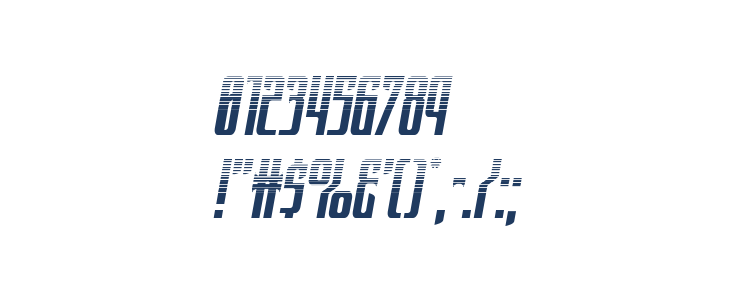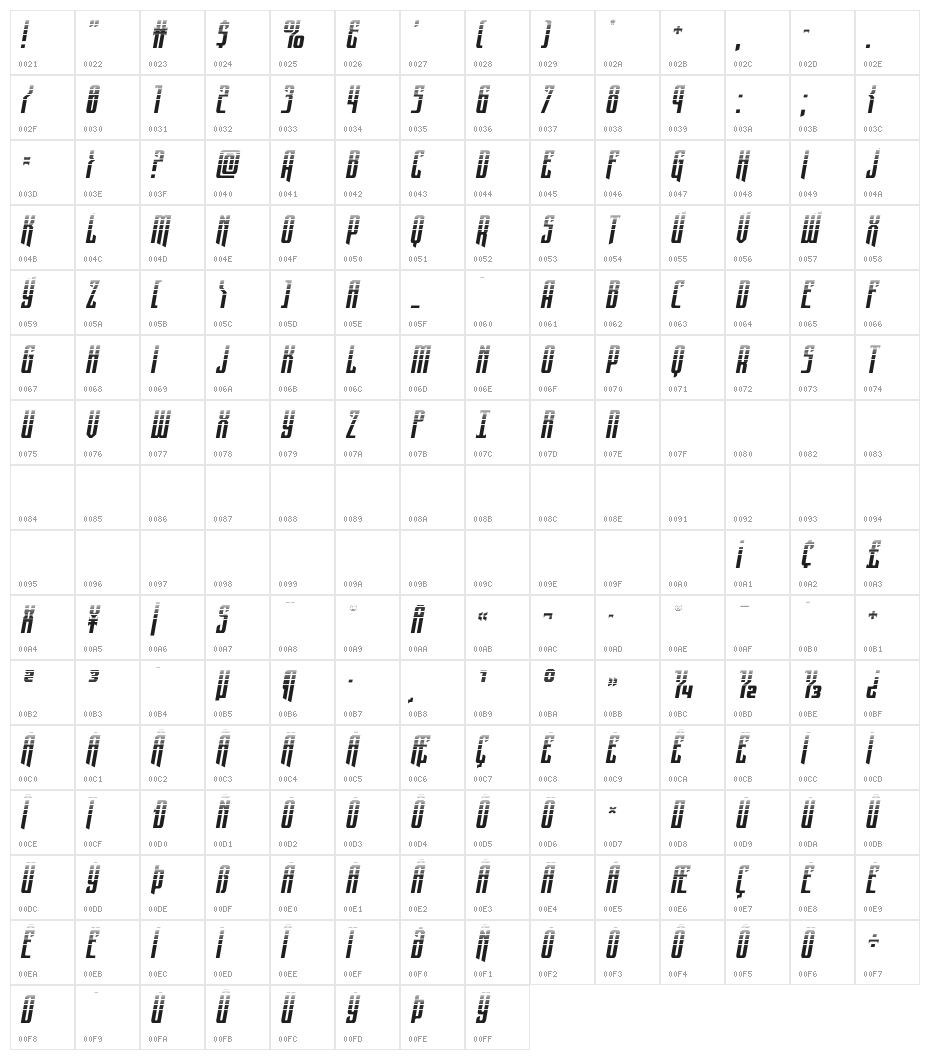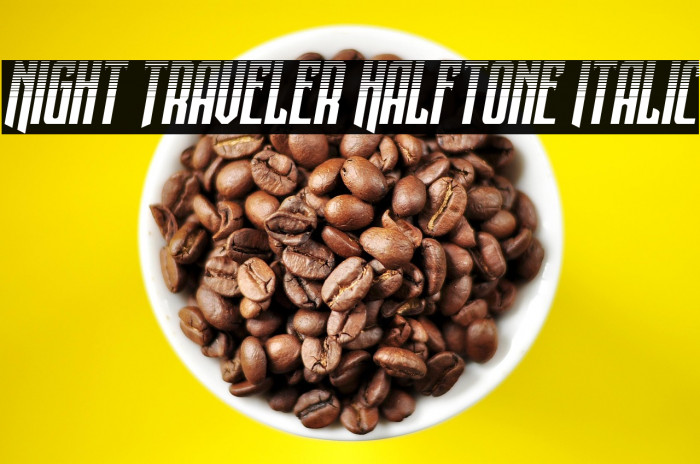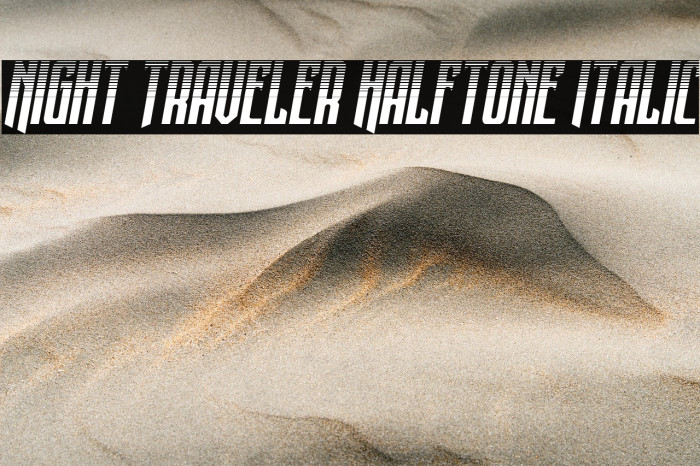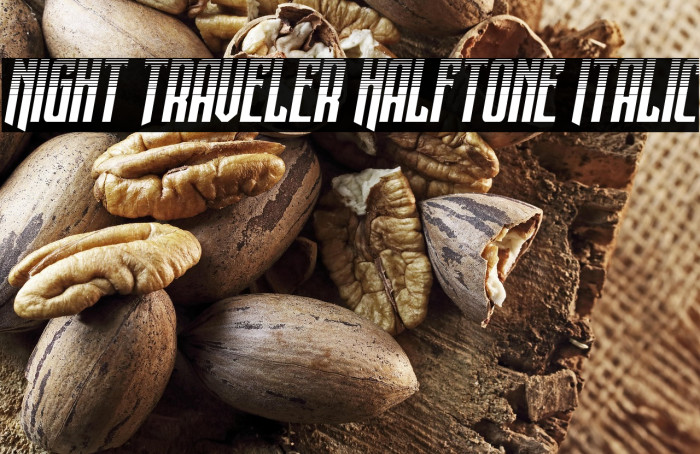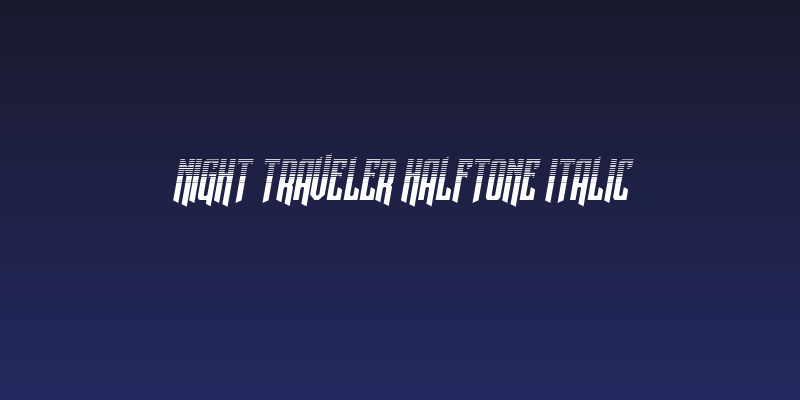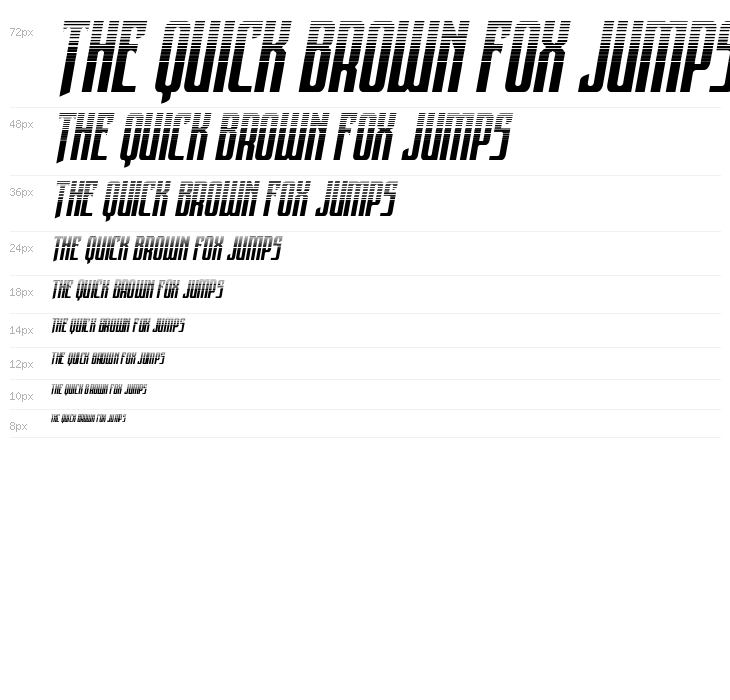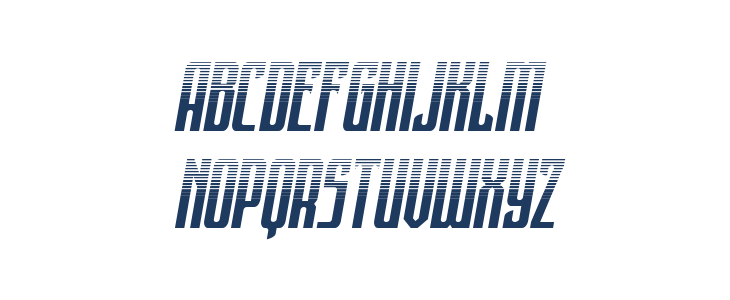
Night Traveler Halftone Italic Font
Night Traveler Halftone Italic Description
This font features a dynamic and futuristic design with a halftone effect that gives it a sense of motion and energy. The characters are italicized, adding to the sense of speed and modernity. Each letter is composed of horizontal lines that create a gradient effect, transitioning from solid black at the bottom to lighter shades at the top. This unique style makes it stand out, perfect for projects that require a bold and eye-catching typeface. The uppercase and lowercase letters maintain a consistent style, with numerals and special characters following the same design principles.
| Proposed Projects | Ideal for futuristic branding, sports team logos, tech event posters, and video game titles. |